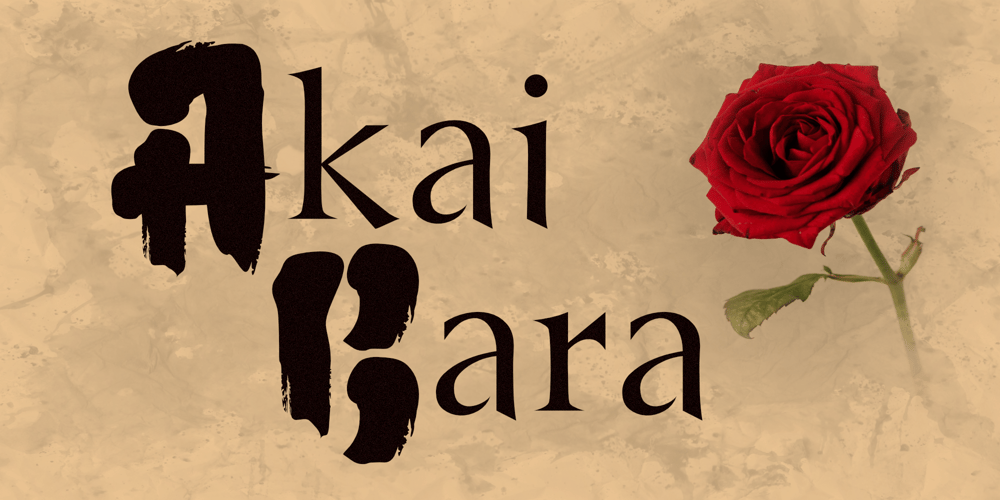
Akai Bara Font Family was designed by Michael Kovacevich and published by MKGD. Akai Bara contains 1 styles and family package options. I’ve always found the focal point of attraction in Japanese packaging to be the interplay between bold, brushed, calligraphic, kanji characters juxtaposed against present day Latin typography.It occurred to me that if Japanese packaging can accommodate this visual dichotomy, then why not make these two elements available in a single font.The typeface, Akai Bara (Japanese for “Red Rose”), is a Latin font comprised of two distinct parts. The uppercase letters are influenced by the bold, intense, flourishes of traditional Sumi-e brush in full flower; while the thorny lowercase characters are structured in a more familiar fashion.Together, they provide the perfect solution for Asiatic design projects by displaying a modern beauty alongside a splash of oriental artistry.Akai Bara has a glyph count of 388 and supports the following languages:Afrikaans • Albanian • Asu • Basque • Bemba • Bena • Bosnian • Catalan • Cebuano • Chiga • Colognian • Cornish • Corsican • Croatian • Czech • Danish • Embu • English • Esperanto • Estonian • Faroese • Filipino • Finnish • French • Friulian • Galician • German • Gusii • Hungarian • Icelandic • Ido • Indonesian • Interlingua • Irish • Italian • Javanese • Jju • Kabuverdianu • Kalaallisut • Kalenjin • Kamba • Kikuyu • Kinyarwanda • Kurdish • Latvian • Lithuanian • Lojban • Low German • Lower Sorbian • Luo • Luxembourgish • Luyia • Machame • Makhuwa-Meetto • Makonde • Malagasy • Malay • Maltese • Manx • Māori • Mauritian Creole • Meru • North Ndebele • Northern Sotho • Norwegian Bokmål • Norwegian Nynorsk • Nyanja • Nyankole • Occitan • Oromo • Polish • Portuguese • Rejang • Romanian • Romansh • Rombo • Rundi • Rwa • Samburu • Sango • Sangu • Sardinian • Scottish Gaelic • Sena • Shambala • Shona • Slovak • Slovenian • Soga • Somali • South Ndebele • Southern Sotho • Spanish • Sundanese • Swahili • Swati • Swedish • Swiss German • Taita • Taroko • Teso • Tsonga • Tswana • Turkmen • Upper Sorbian • Vunjo • Walloon • Walser • Wolastoqey • Xhosa • Zulu